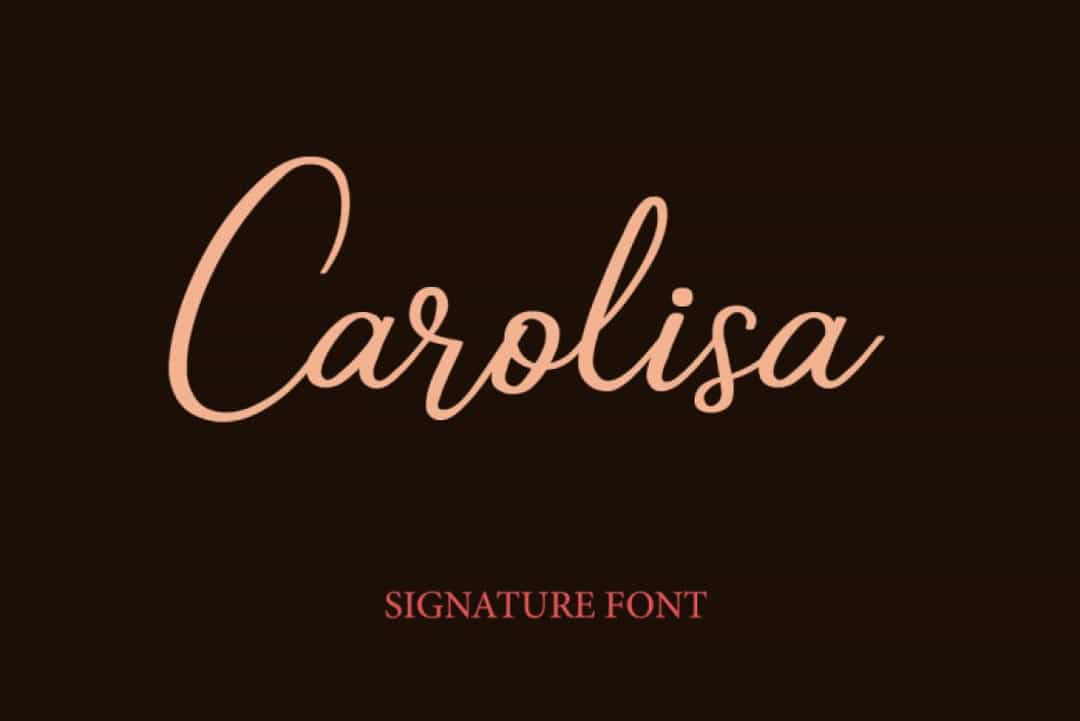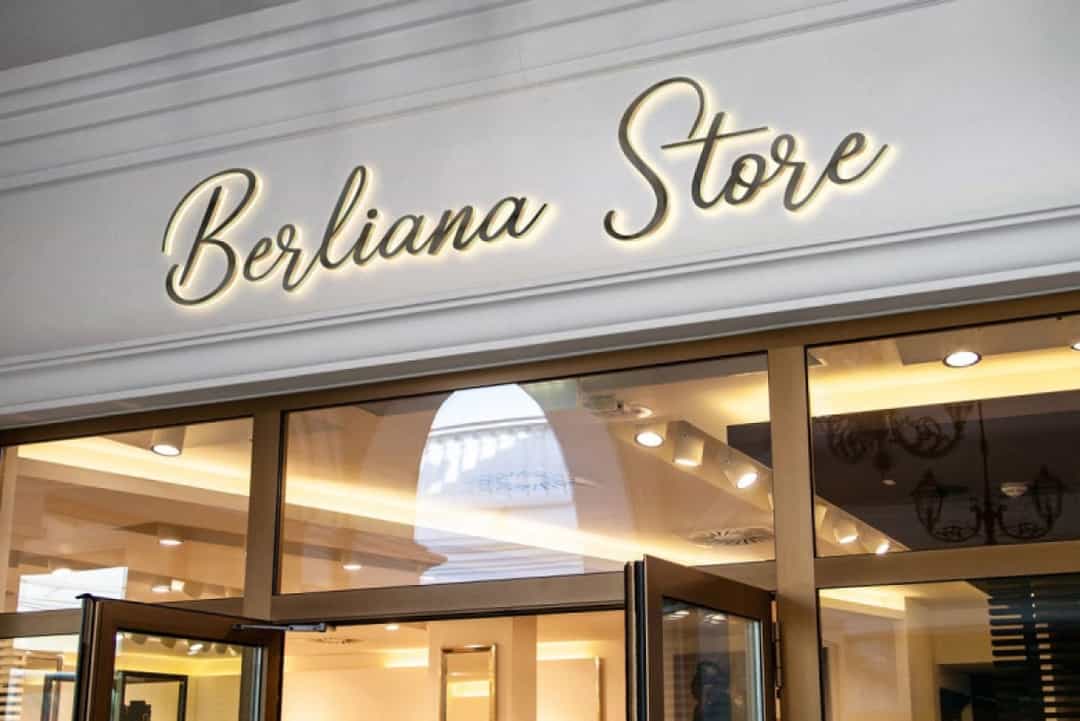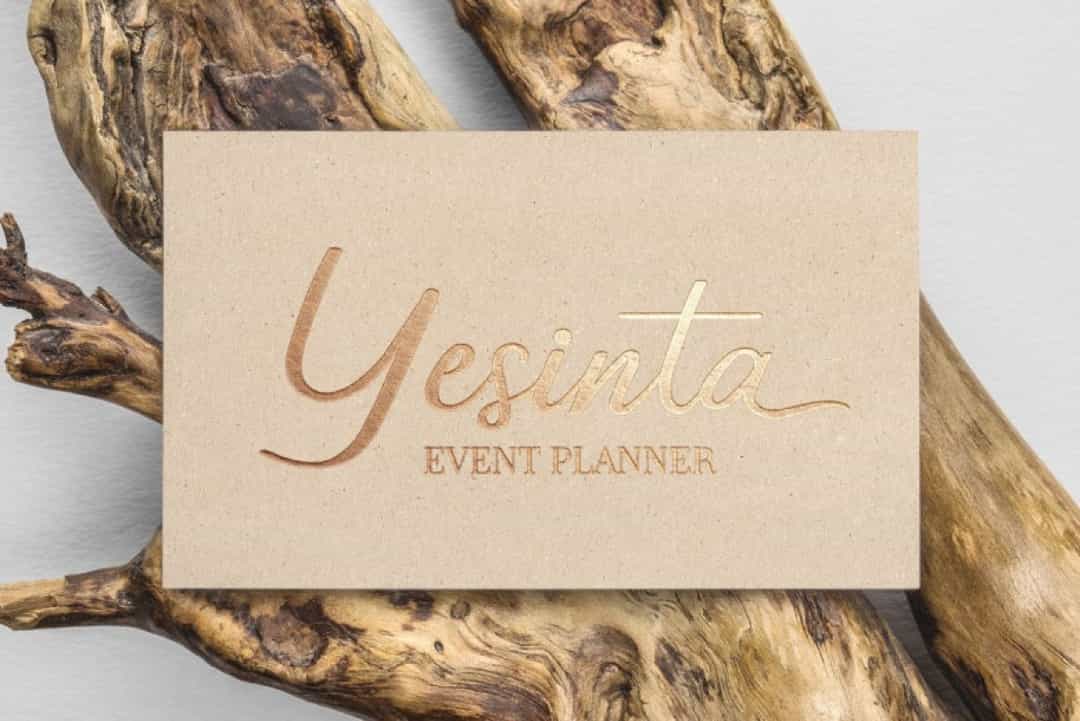
Carolisa is a simple, beauty and elegant signature script font with the handwriting style. It will be the best fit for any signature project. Carolisa script font is also easy to pair with another one, so it will make your design more impressive. Let your business have a classy logo.